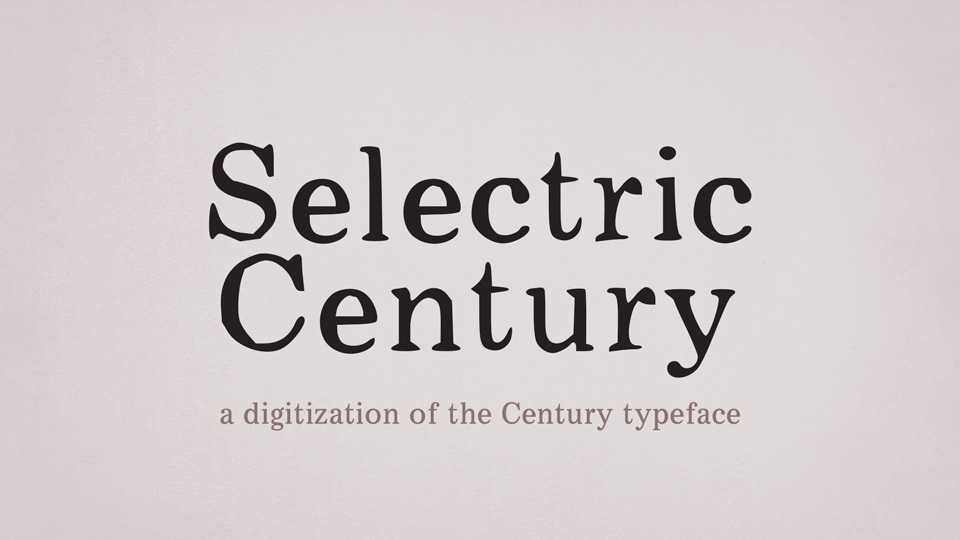
Download Selectric Century typeface, a classic serif font family, a digitization of the Century type from IBM’s Selectric Composer. Selectric Century contains two font styles based on original glyphs and also Clean version.
Designer: Jens Kutilek